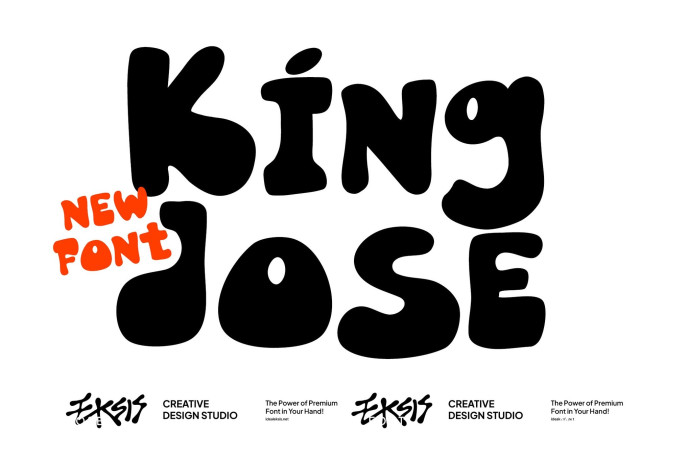
King Jose Display Font
Designer: Idealx
King Jose Display Font is an ultra-bold display typeface characterized by its soft, bulbous forms and organic, liquid-like silhouettes. The letterforms feature extremely heavy weights with minimal negative space, creating a dense and impactful visual presence. Each character boasts rounded terminals and fluid curves that evoke a sense of playfulness and retro-modern energy. The lack of sharp angles and the exaggerated, chunky proportions make it ideal for high-impact headlines, poster designs, and branding projects that require a bold, friendly, and unconventional aesthetic.